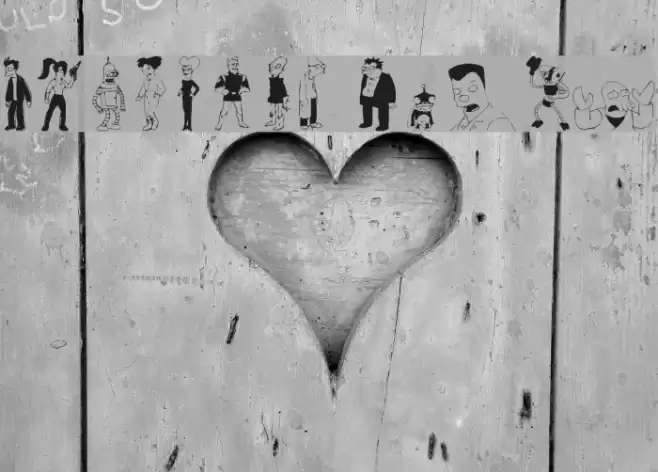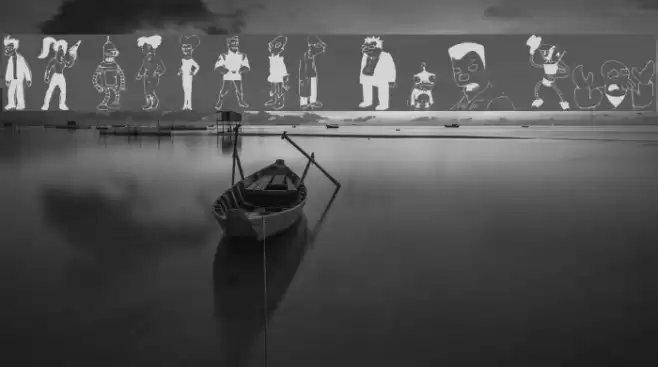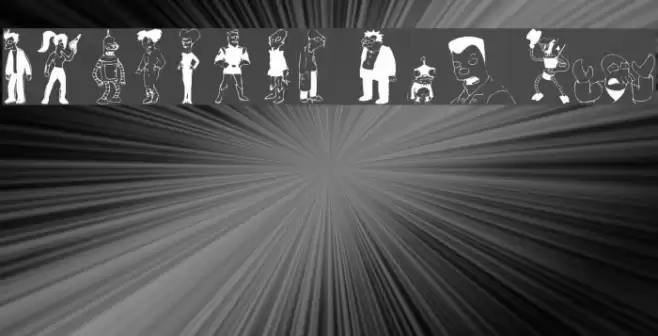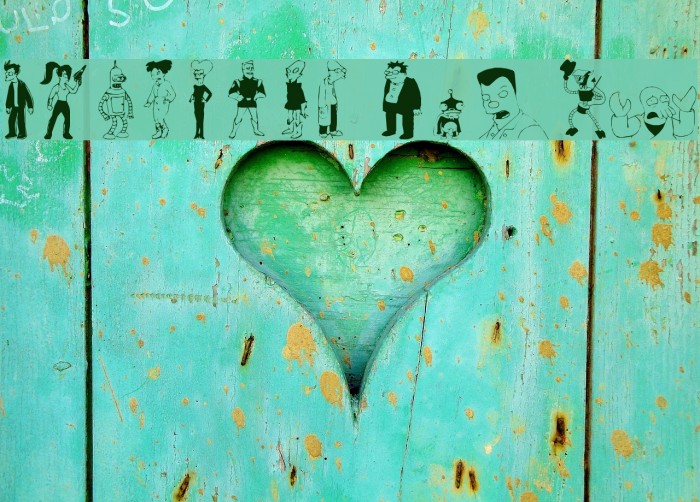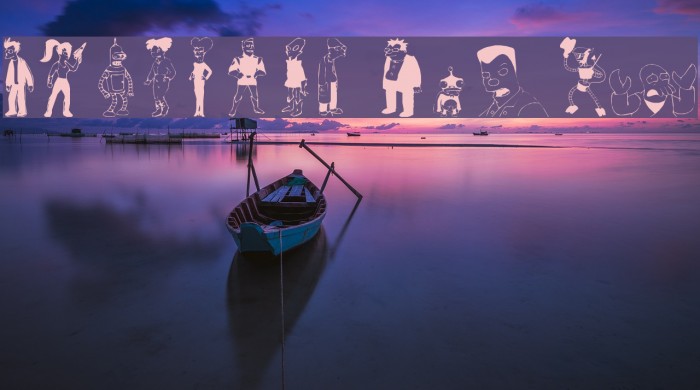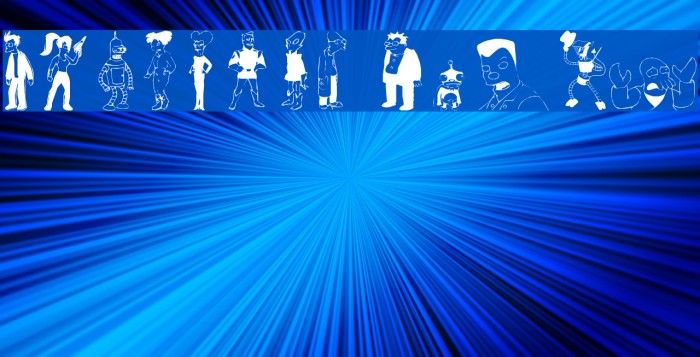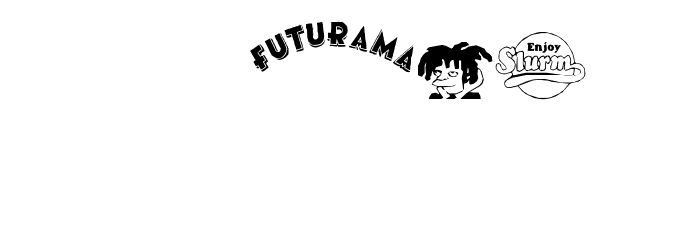
This set of dingbats features iconic characters and elements from a popular animated series. Each symbol is a detailed, black-and-white illustration capturing the essence of the show's unique style and humor. The characters are depicted in various poses, showcasing their distinctive personalities and traits. The symbols include both main and supporting characters, as well as recognizable objects and logos from the series. The artwork is bold and cartoonish, with clean lines and high contrast, making it suitable for a variety of creative projects.
A collection of detailed dingbats featuring characters and elements from a well-known animated series from Dingbats fonts.
- Proposed Projects: Ideal for fan art, themed party invitations, custom merchandise, or any project celebrating the animated series.
- Overall Style: Cartoonish, Humorous
- Use Case: Logos, Decorative elements